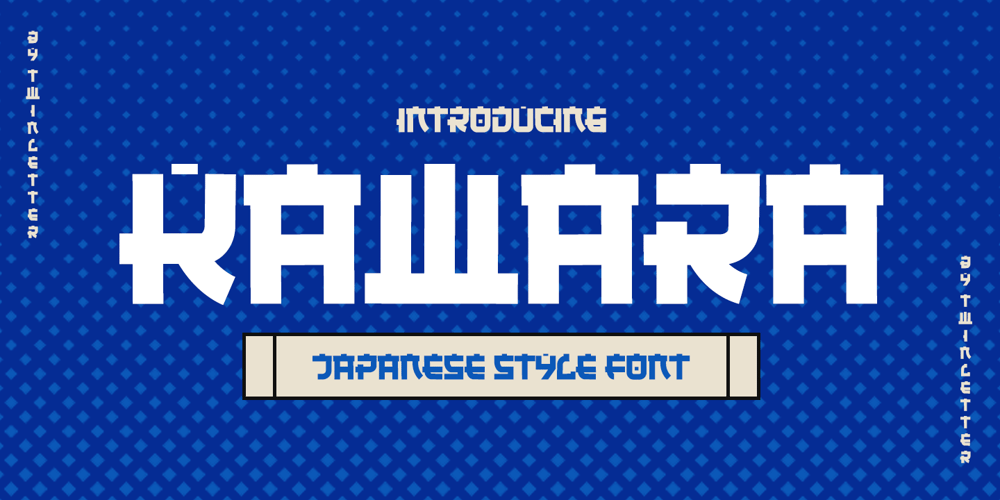
Kawara Font Family was designed by Rozikan and published by Twinletter. Kawara contains 1 styles and family package options. Kawara, our newest font, is now available.We produced this display font with a Japanese theme or an Asian font to fulfill the needs of your project with a Japanese theme, but it’s impossible to use an authentic Japanese font because not everyone understands Japanese letters, therefore we present this font as an intermediate alternative.To make your project gorgeous, strong, and bold, we produced this font with the most unique shape imaginable. So, what are you waiting for? Use this font to realize your ambition of having a wonderful project.Logotypes, food banners, branding, brochure, posters, movie titles, book titles, quotes, and more may all benefit from this font.Of course, using this font in your various design projects will make them excellent and outstanding; many viewers are drawn to the striking and unusual graphic display.Start utilizing this typeface in your projects to make them stand out.